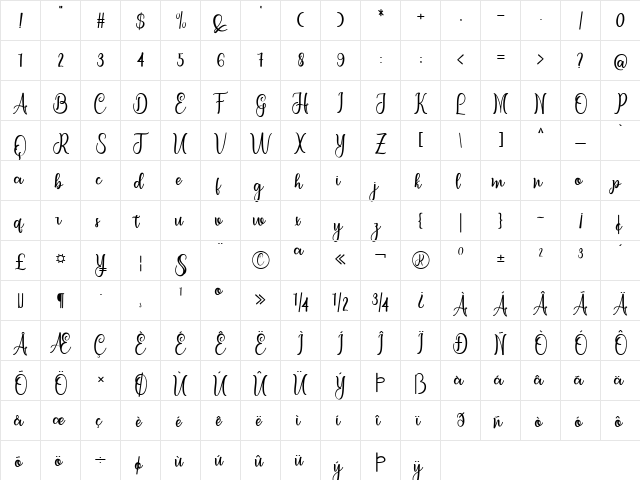
letterbest Regular
| Foundry | Syahputra/Bexxtype |
| Designer | Syahputra/Bexxtype |
Design Context for letterbest Typeface
letterbest is a composed and adaptable typeface that performs quietly and consistently across a wide range of design contexts.